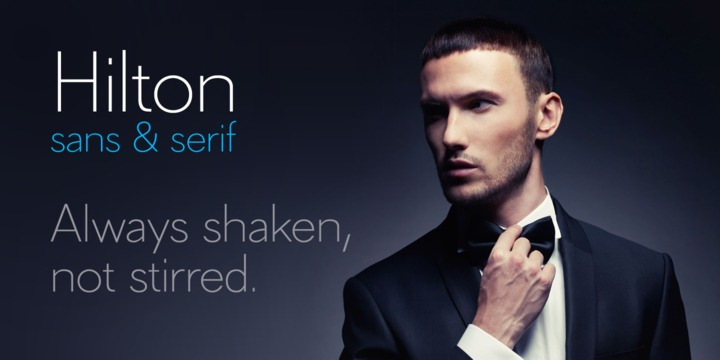
Hilton Sans Serif Font
Hilton Sans Serif Font is perfect for luxury hospitality branding, upscale hotel communications, premium service providers, elegant restaurant menus, sophisticated travel marketing, and high-end accommodation materials. This refined typeface excels in boutique hotel identities, luxury resort promotions, executive business travel services, and any application where gracious hospitality and understated elegance create memorable guest experiences.
What makes Hilton Sans Serif Font so exciting is its exceptional ability to convey luxury hospitality and sophisticated service through elegantly crafted letterforms that embody the finest traditions of gracious hosting. The font features refined proportions, welcoming curves, and hospitable character that creates an immediate sense of comfort and quality. Its sophisticated simplicity makes it perfect for establishments that provide world-class service with understated elegance.
Hilton Sans Serif Font comes in a distinguished family including Thin, Light, Regular, Medium, Bold, and Black weights. Each style features complete uppercase and lowercase character sets, hospitality symbols, elegant numerals, and sophisticated punctuation marks. The font family also includes condensed variants, italic styles, and premium alternates that provide designers with comprehensive tools for creating luxurious hospitality communications.
This exceptional typeface represents the pinnacle of hospitality typography where service excellence meets design sophistication. Hilton Sans Serif Font Free Download empowers luxury hospitality brands to enhance their communications with typography that reflects their commitment to exceptional guest experiences. Whether you're developing hotel brand identities, creating premium travel materials, or designing sophisticated hospitality communications, this font delivers uncompromising elegance with welcoming warmth.
The font's hospitality elegance makes it particularly effective for luxury hotels, fine dining establishments, premium travel services, and upscale accommodation providers. Its superior readability ensures that Hilton Sans Serif Font maintains clarity while projecting maximum sophistication and maintaining its distinctive hospitable character. The font's ability to inspire confidence and communicate luxury service makes it an indispensable asset for any project requiring typography that embodies the highest standards of hospitality excellence and creates lasting impressions of quality and gracious service.